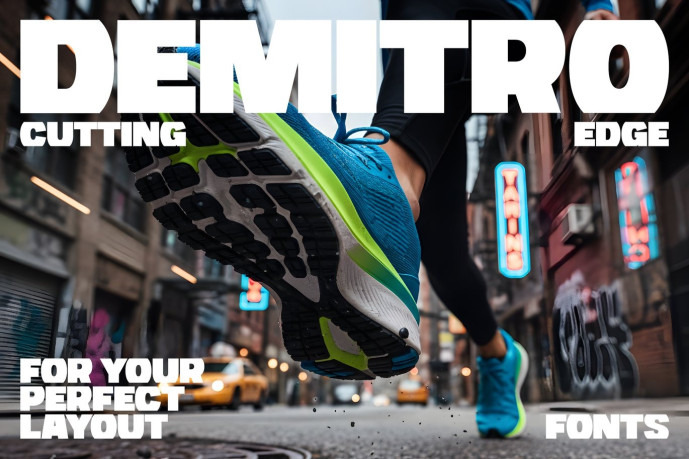
Demitro Font
Demitro Font – Redefining the grid. Demitro isn’t just another bold sans-serif; it’s a display typeface meticulously crafted for designers who demand structure. By painstakingly erasing the top and bottom of traditional letters, Demitro transforms standard characters into hyper-stable, square blocks.